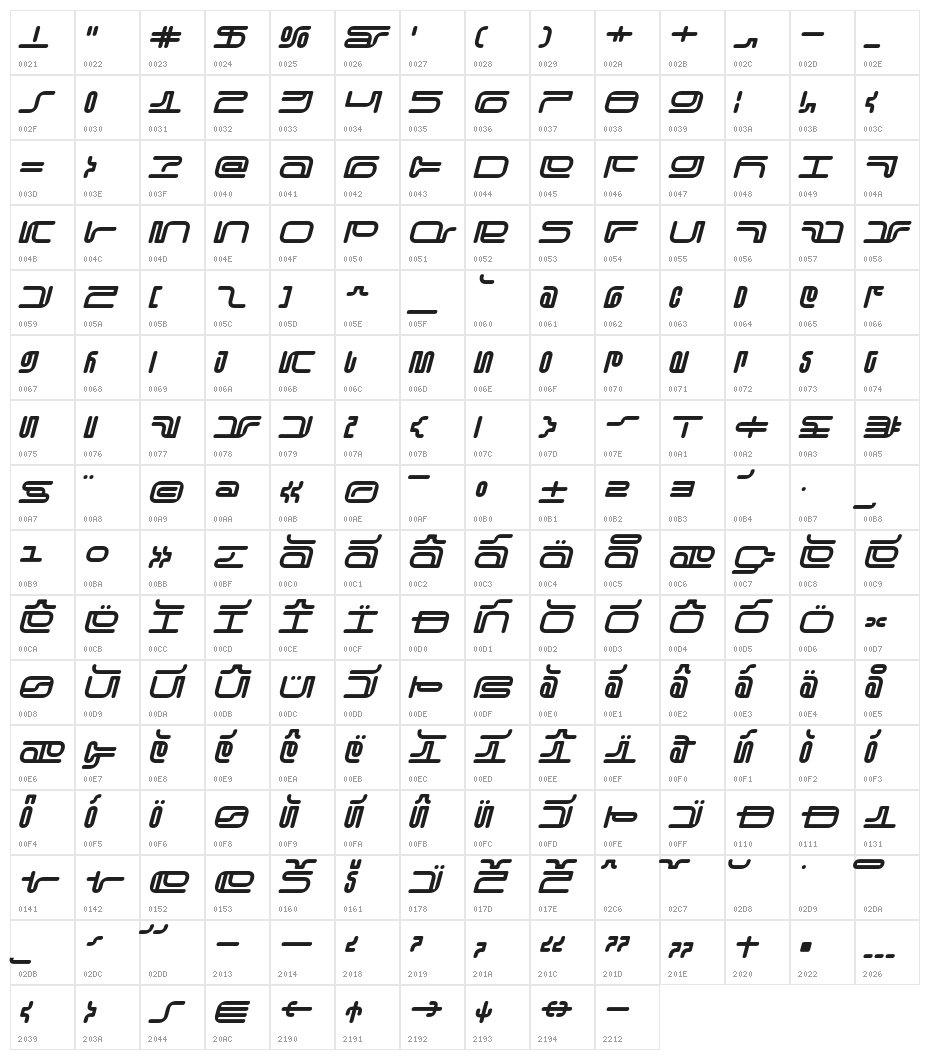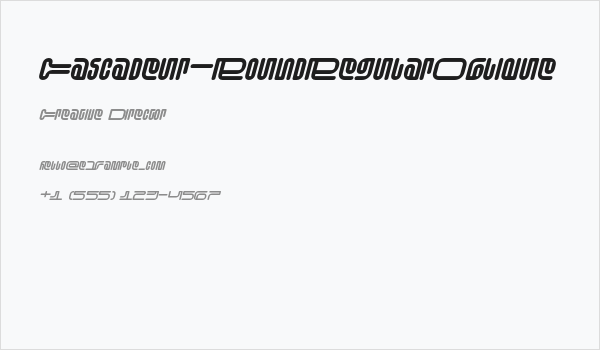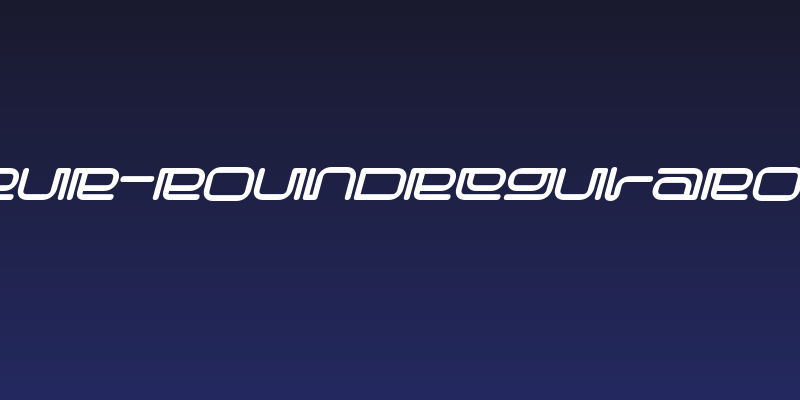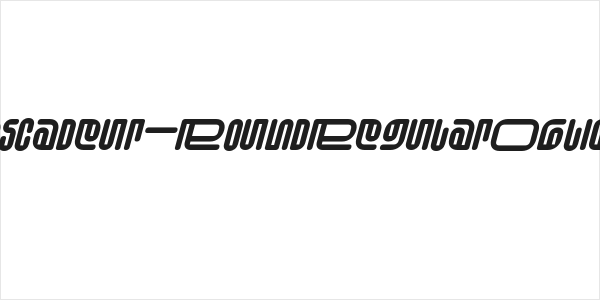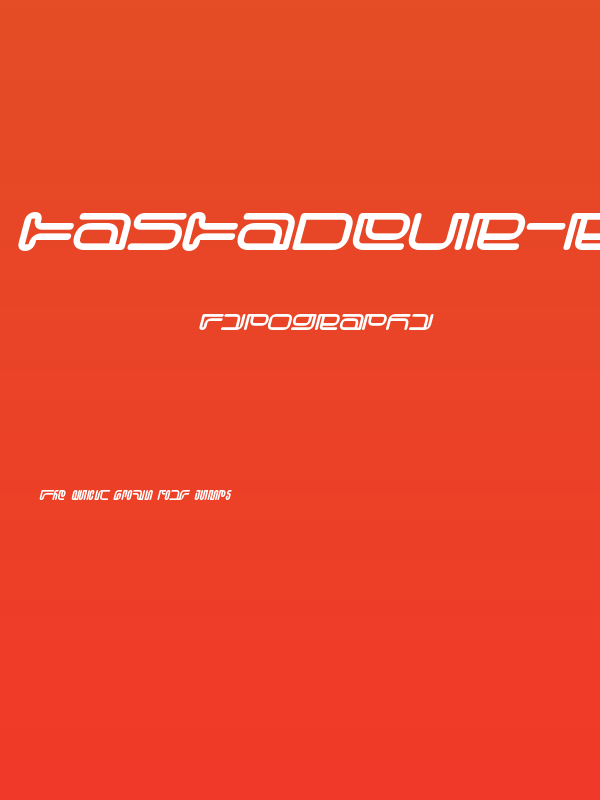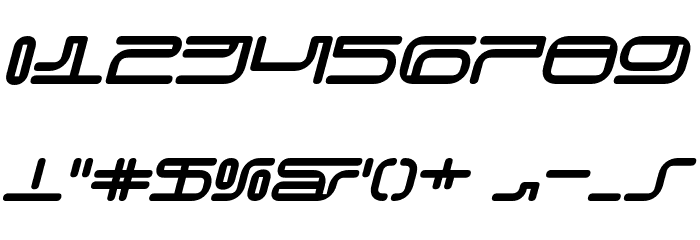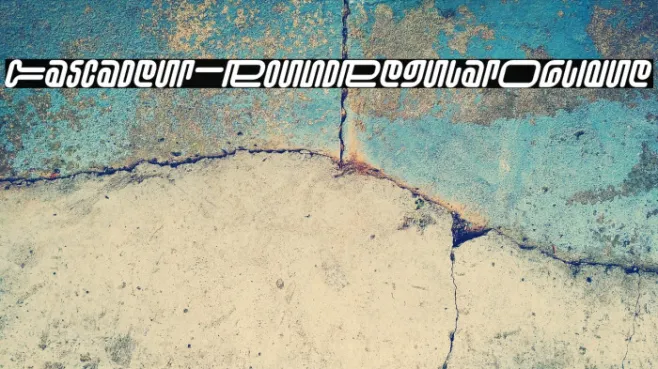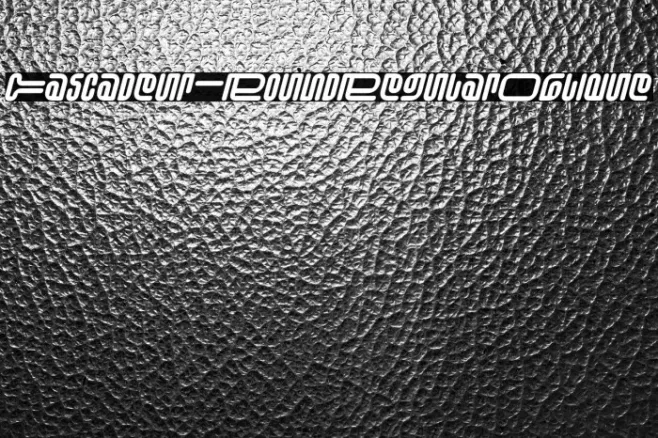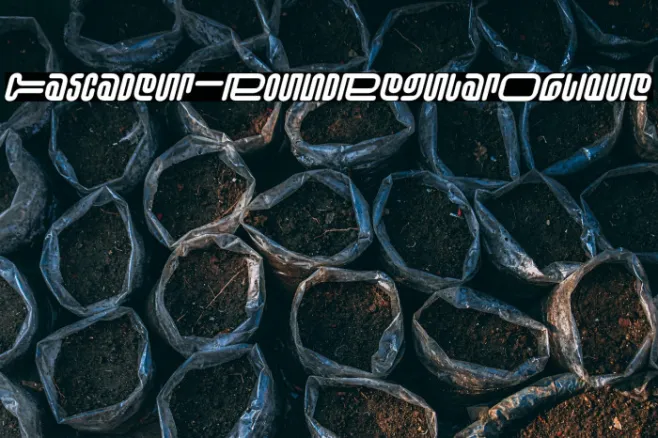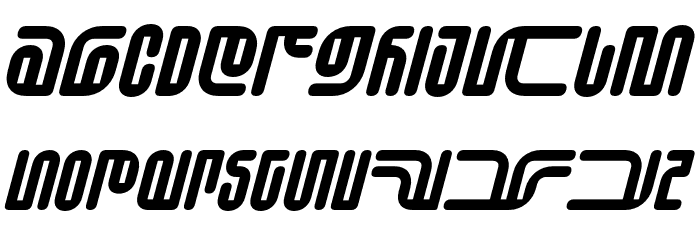
Cascadeur-RoundRegularOblique Font
Cascadeur-RoundRegularOblique Description
This font features a futuristic and dynamic design with rounded edges and a distinct oblique style. The characters are bold and have a unique flow, creating a sense of movement and energy. The uppercase and lowercase letters maintain a consistent style, with smooth curves and a slightly condensed appearance. Numbers and special characters follow the same design principles, ensuring uniformity across all glyphs. The overall look is modern and sleek, making it suitable for projects that require a contemporary and innovative touch.
| Proposed Projects | Ideal for sci-fi themed designs, technology branding, video game titles, and modern advertising campaigns. |